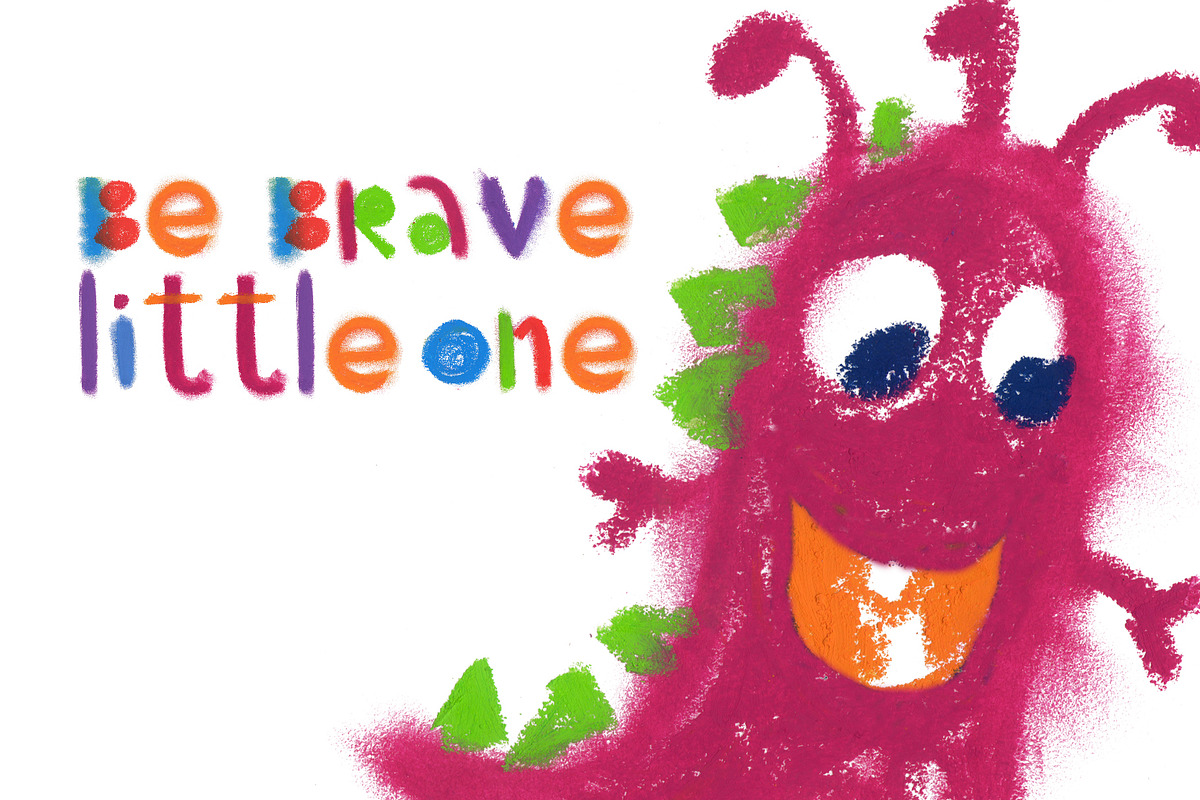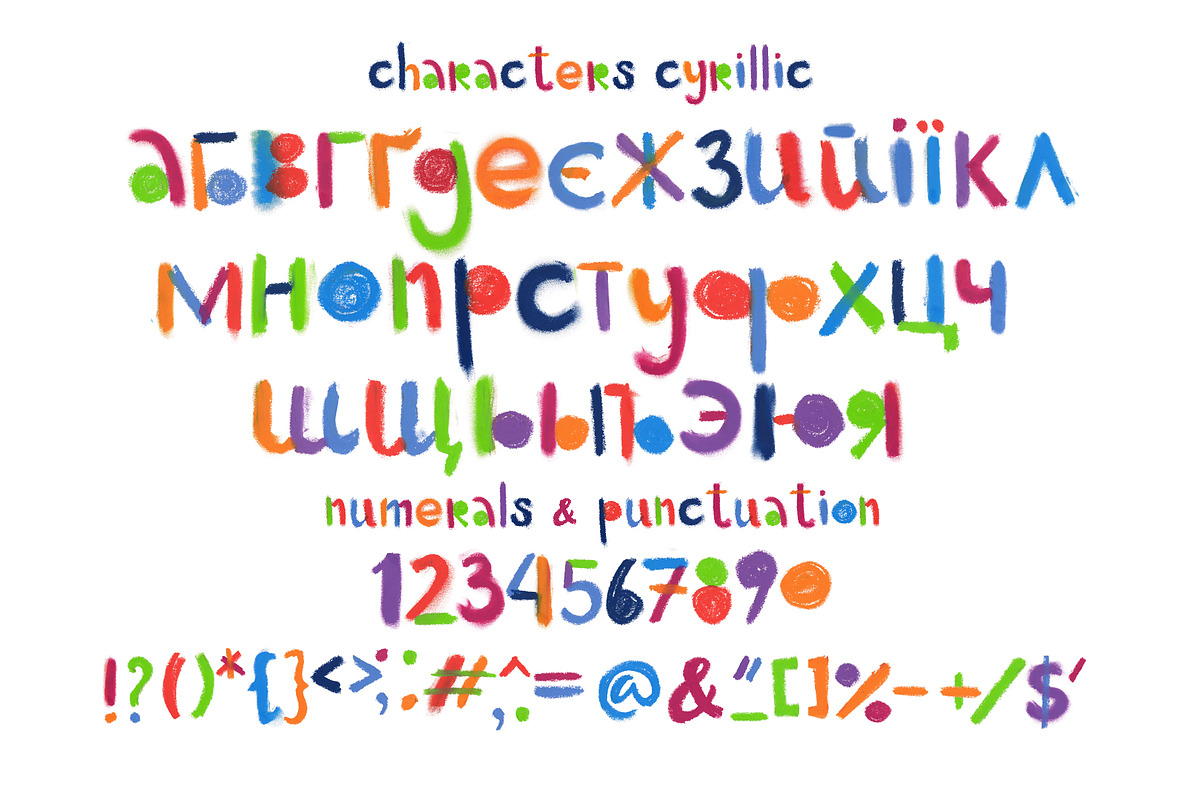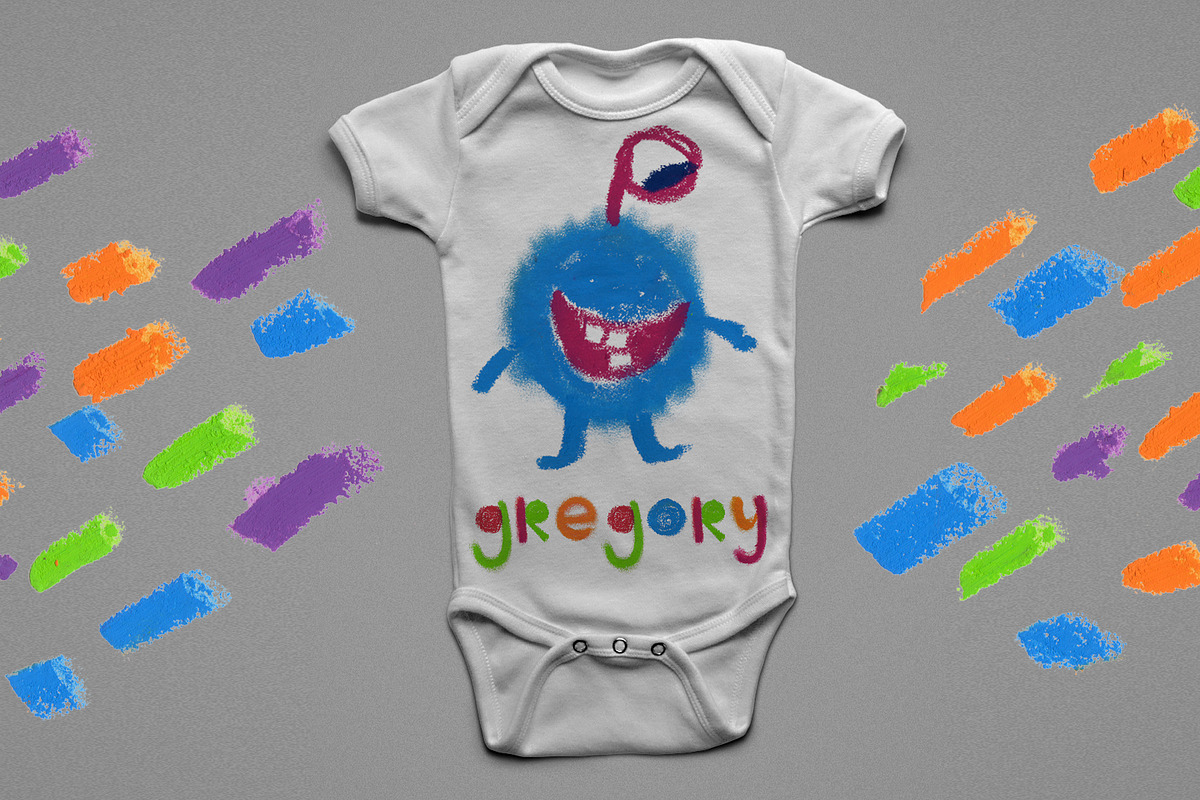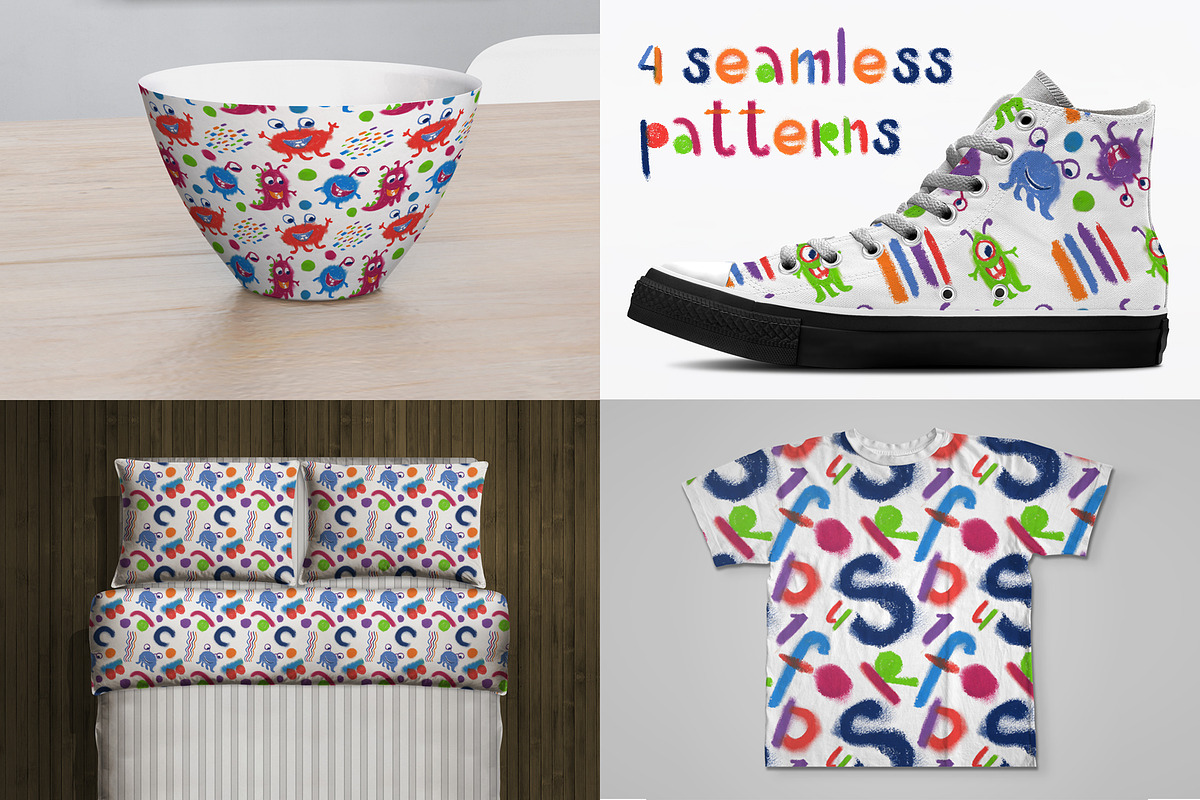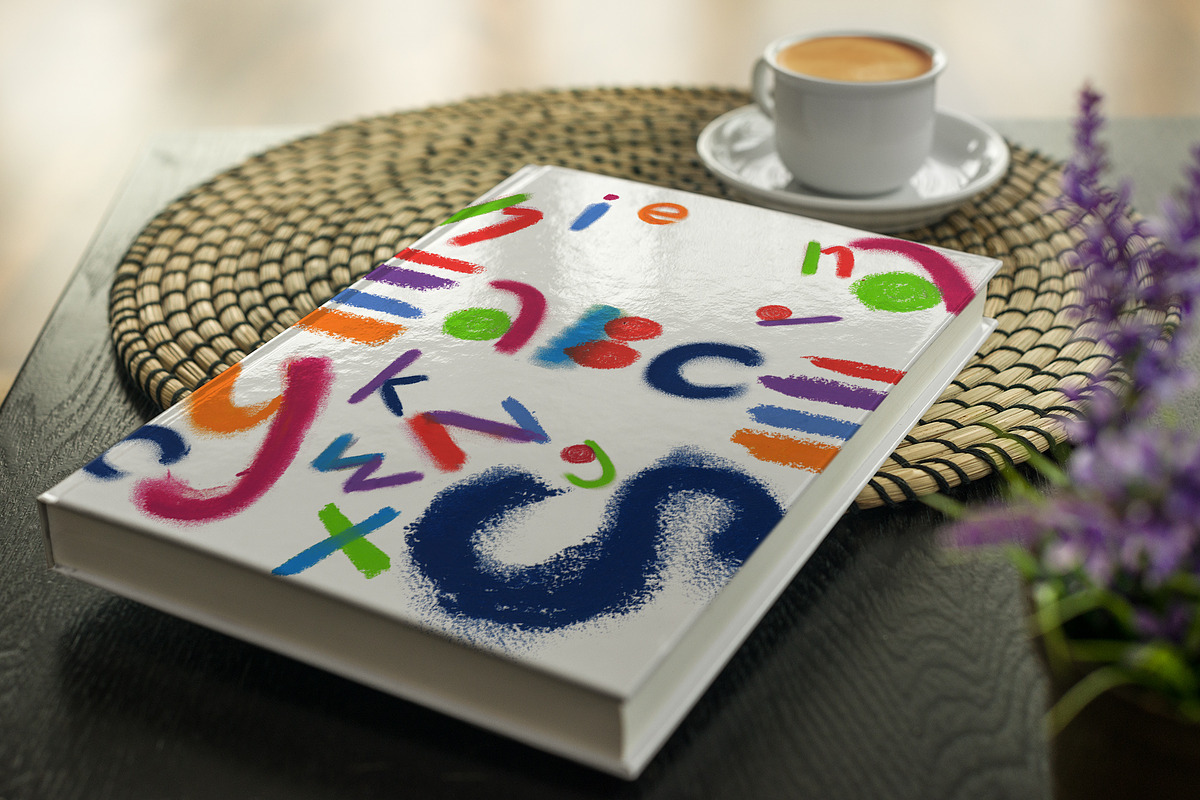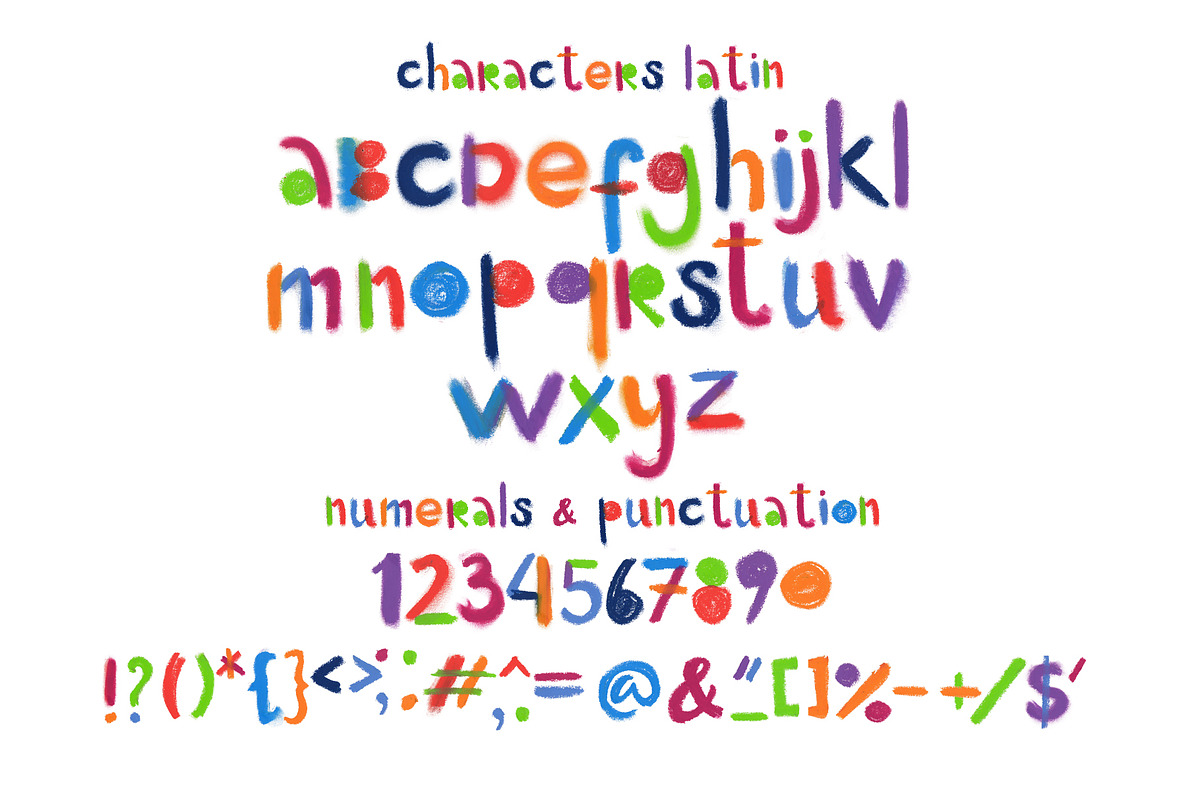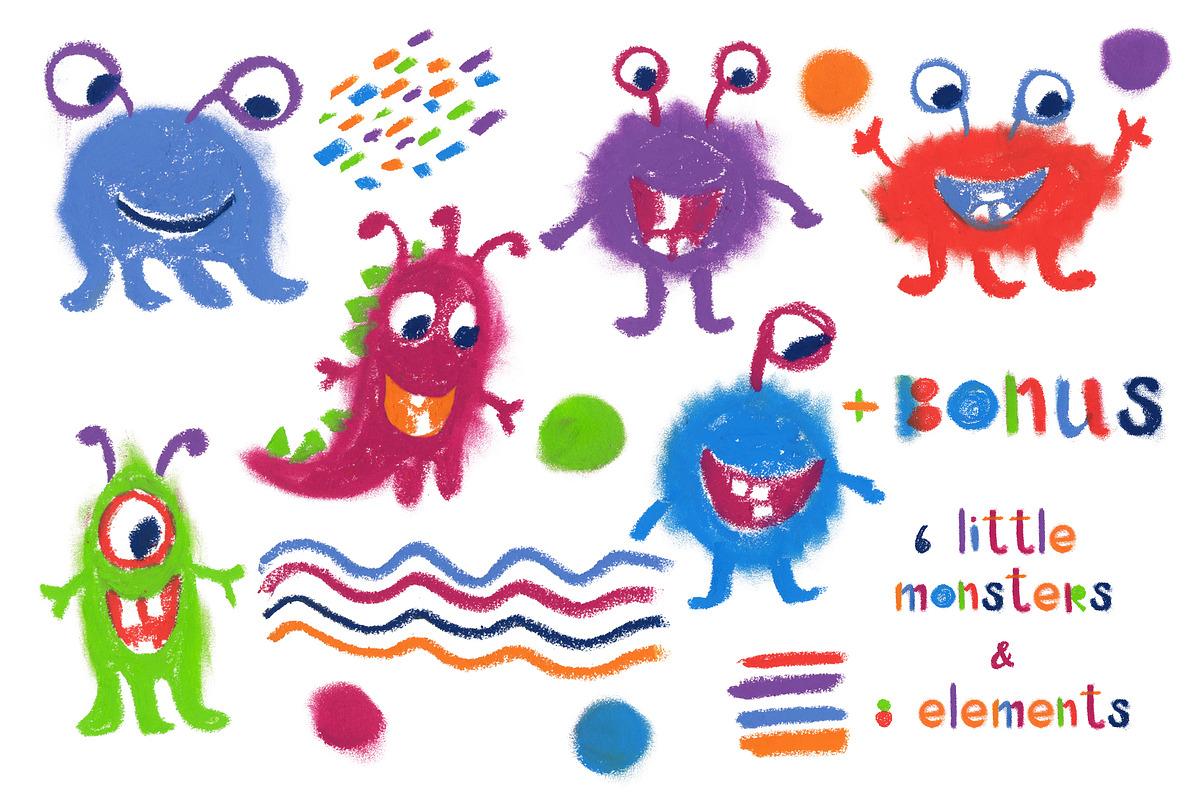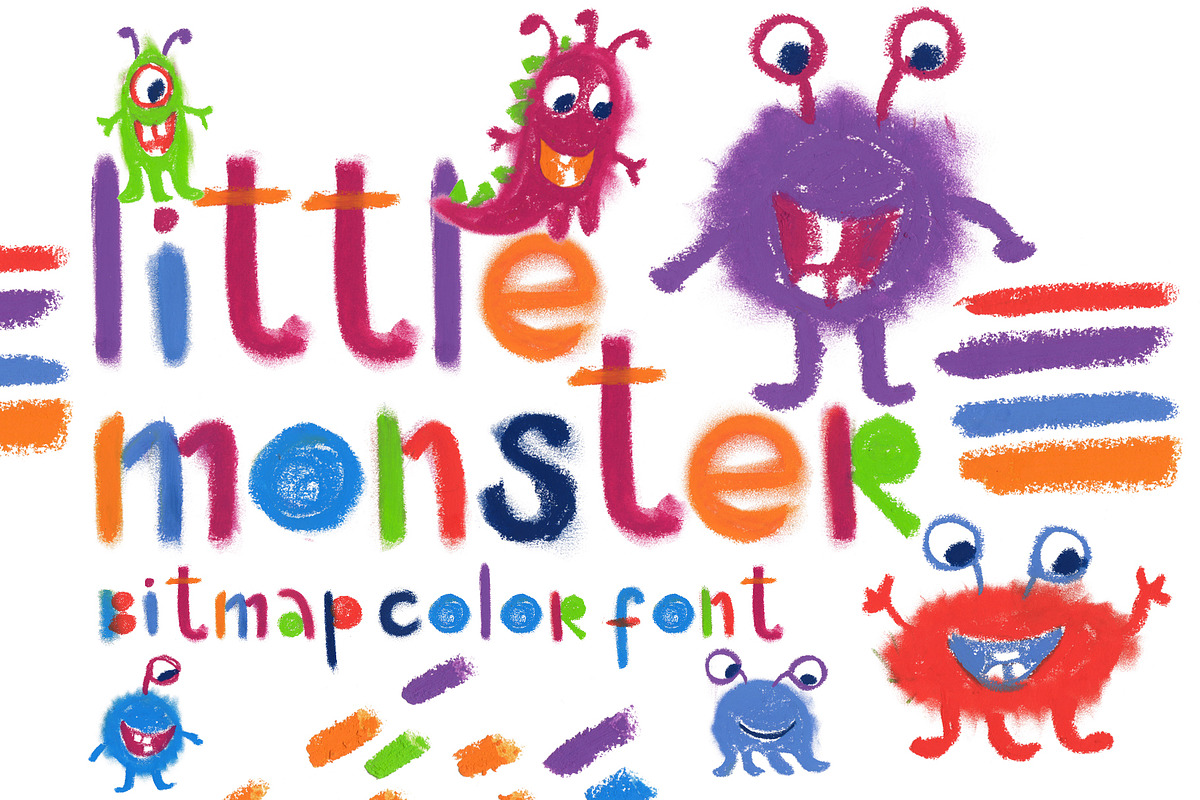
"Little monster" bitmap color font
I'm happy to present you my new handmade fun color bitmap OpenType-SVG font – "Little monster" with Latin and Cyrillic letters! Children drawings inspired me to create this font. "Little monster" font contains Latin letter and Cyrillic letter set, numerals and punctuation. This font work nicely for all sorts of things including t-shirt design, typographic art, social media images and so much more!
Font features: Standard characters A-Z, 0-9, and punctuation for the Latin Basic and Western European set, Cyrillic А-Я set, additional letters for the Ukrainian language. Thanks and Enjoy!
- "Little monster" font contains Latin letter and Cyrillic letter set, numerals and punctuation.